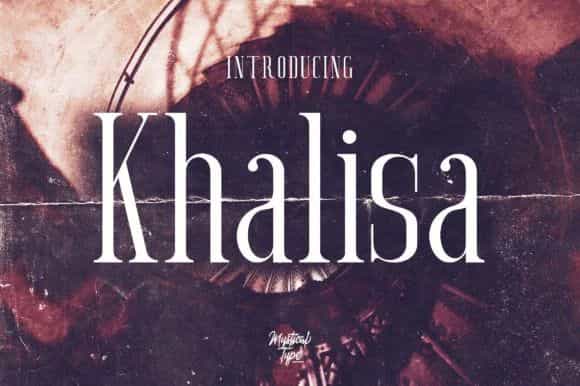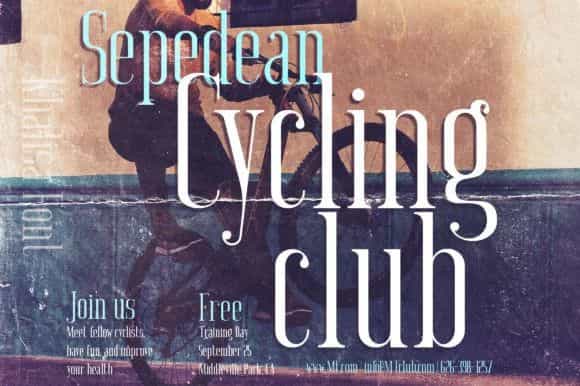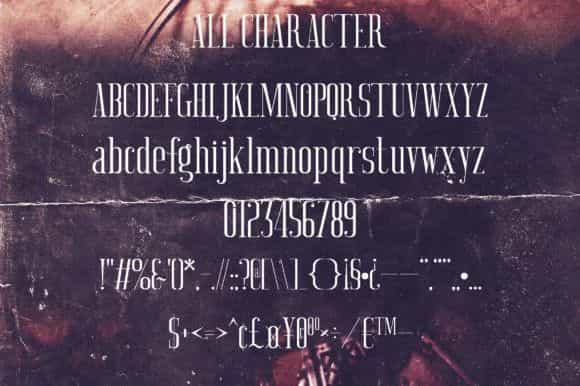
Introducing Khalisa Serif Font. It is a modern serif font that makes us think about the transitional serifs style. The following points can be critiqued: the strokes used are not very contrasting; the round characters’ shapes are slightly more rectangular than circular; and the whole appearance is more businesslike. It is design and shared by Mystical Type.